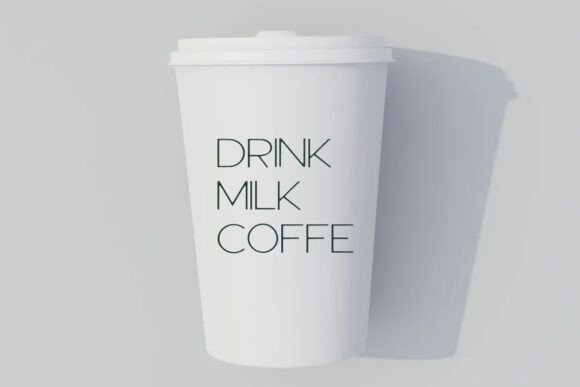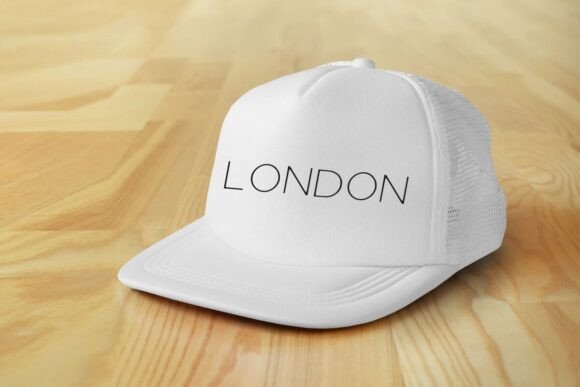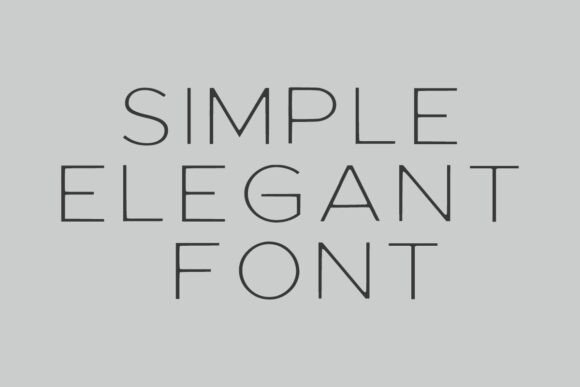
Introduction to Minimalist Sans Font
Have you ever stumbled upon a design that perfectly captures the essence of a creative project, only to find yourself wondering what font it’s using? For designers, discovering the perfect font can be the difference between a good design and a great one. This is exactly what happens when you come across the Minimalist Sans Font – a stunning, high-quality display font that exudes elegance and simplicity.
As a valuable resource for designers, the Minimalist Sans Font offers a transparent background that allows your creative project to shine. Its informal style and casual vibe make it an ideal choice for product packaging, invitations, quotes, and even t-shirts. With its clean and minimalist design, this font is perfect for designers who want to add a relaxed touch to their work without compromising on style.
Key Features of Minimalist Sans Font
- High-quality design resource ideal for creative projects, with a clean and modern aesthetic.
- Features a transparent background, making it easy to layer over other design elements without any visual clutter.
- Designed with simplicity and readability in mind, making it perfect for use in body text, headings, and titles.
Honest Review: Minimalist Sans Font
As a designer, I’m always on the lookout for high-quality design resources to elevate my creative projects. The Minimalist Sans Font is one such resource that caught my attention. I downloaded it for free and was excited to put it to the test.
- Simple yet elegant design aesthetic that fits perfectly with modern design trends.
- High-quality font with a transparent background, making it easy to use on any background.
- Perfect for digital and print projects, including logos, brochures, and websites.
- Only available in a few font weights, which may limit its versatility.
- Not as extensive a character set as some other fonts, which may cause issues with certain languages.
Overall, I’m impressed with the Minimalist Sans Font. It’s a solid addition to any designer’s toolkit, and its free download option makes it a great resource for designers on a budget. While it may have some limitations, it’s a great choice for simple, modern design projects.
How to Use Minimalist Sans Font
The Minimalist Sans Font is a high-quality, free download design resource ideal for any creative project. This clean and modern font is perfect for those looking for a simple yet effective typography solution.
Getting the Most Out of Minimalist Sans Font
To get the most out of the Minimalist Sans Font, use it on a transparent background to give your design a clean and minimalist look. Experiment with different font sizes and colors to create a visually appealing effect.
The Minimalist Sans Font is perfect for a variety of projects, including:
- Brochures and flyers
- Website headers and footers
- Presentations and reports
Alternatives to Minimalist Sans Font
Montserrat is a popular sans-serif font that is ideal for creative projects, particularly those that require a clean and modern design. It’s available for free download and is a great resource for designers looking for a high-quality font.
Montserrat is a more geometric font compared to Minimalist Sans Font, with a more angular and modern aesthetic. It’s perfect for use in headings and titles, and can add a touch of sophistication to any design project.
When to use: Montserrat is ideal for creative projects, such as branding, advertising, and web design, where a clean and modern look is required.
Open Sans is a highly legible and versatile sans-serif font that is perfect for use in a variety of design contexts. It’s available for free download and is a great resource for designers looking for a high-quality font.
Open Sans is a more rounded font compared to Minimalist Sans Font, with a softer and more approachable aesthetic. It’s perfect for use in body text and can help to create a sense of transparency and openness in a design project.